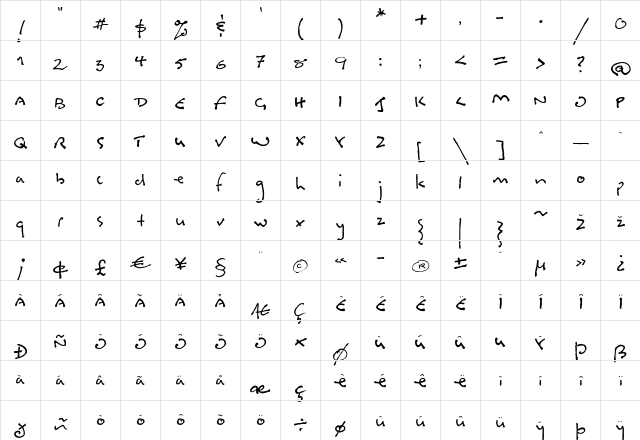
Bosin Regular
Design Context for Bosin Typeface
Bosin is a composed and adaptable typeface that performs quietly and consistently across a wide range of design contexts.